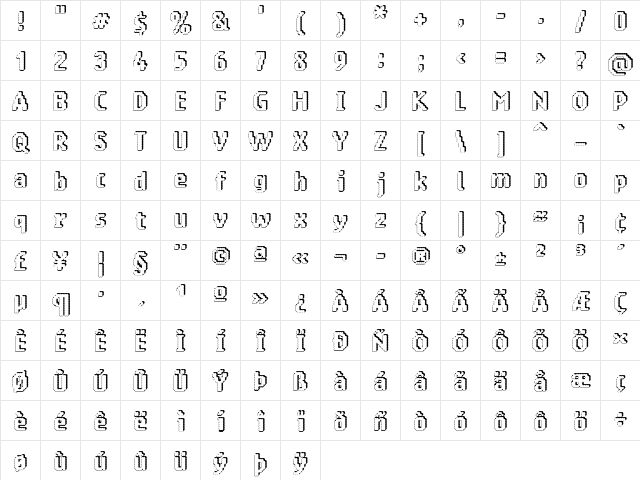
14 LED Rised Black
| Foundry | Peter Wiegel |
| Designer | Peter Wiegel |
Design Context for 14 LED Rised Typeface
14 LED Rised takes a measured approach to typography — its balanced proportions and neutral character make it a reliable workhorse for both digital and print work.